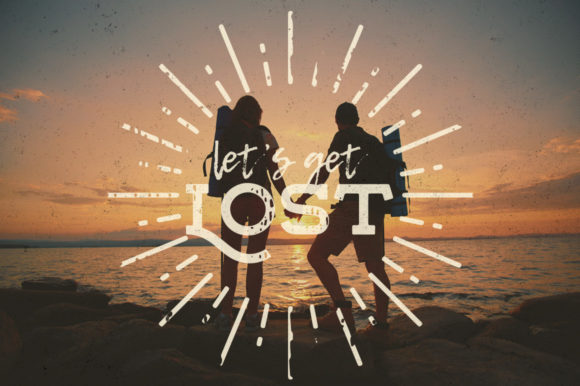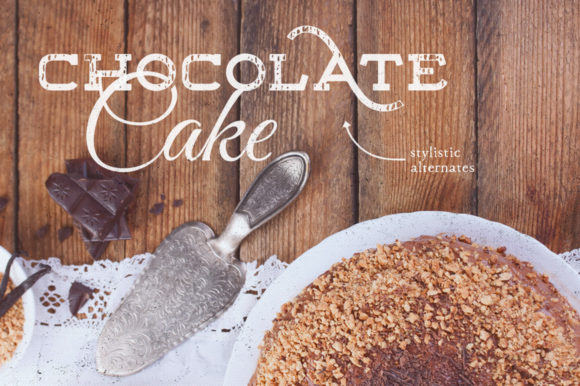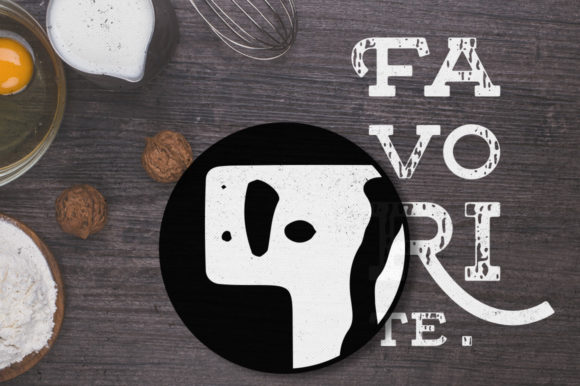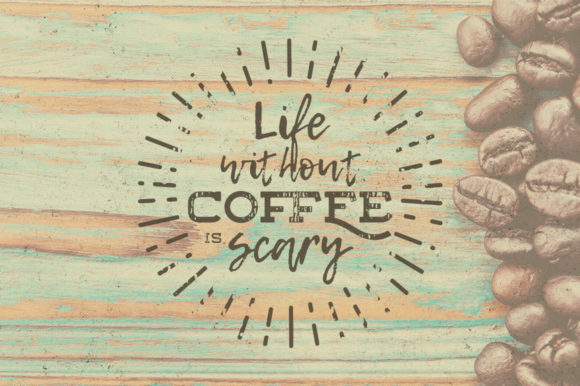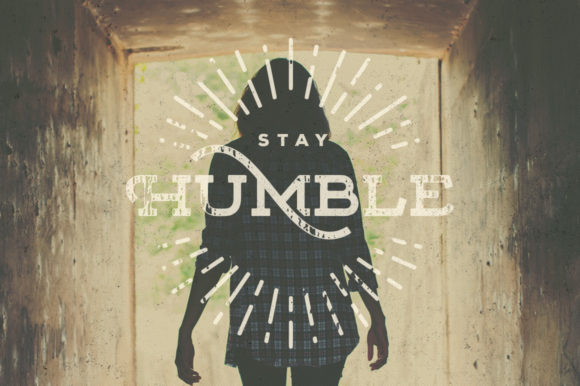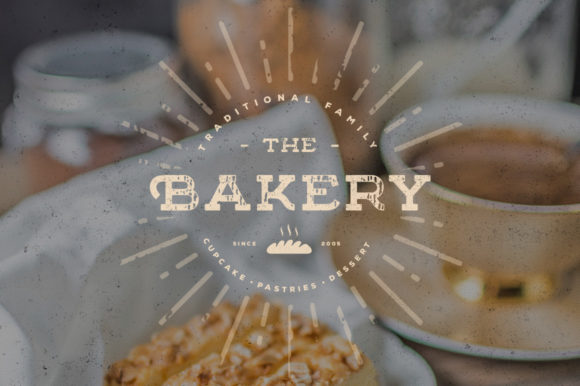
Introducing Floure Font: A Vintage Slab Serif Typeface for Authentic Retro Designs
In the world of typography, a new font has emerged that is sure to capture the hearts of designers and crafters alike. Meet Floure Font, a slab serif typeface that draws inspiration from the mid-19th century with its strong, unique, and vintage rough shapes. This font is perfect for those looking to add an authentic retro feel to their designs, whether it’s for branding, advertising, poster design, book covers, headlines, prints, merchandise, websites, magazines, album covers, quote designs, and more.
The Inspiration Behind Floure Font
Floure Font is a nod to the typographic styles of the mid-19th century, a time when slab serif fonts were gaining popularity. The font’s design is characterized by its strong, rugged shapes and vintage feel, which evoke a sense of nostalgia and timelessness. The creators of Floure Font aimed to capture the essence of this era and bring it to modern designers and crafters, allowing them to create authentic retro designs that stand out.
Key Features of Floure Font
So, what makes Floure Font so special? Here are some of its key features:
- Mid-19th century style: Floure Font is inspired by the typographic styles of the mid-19th century, making it perfect for designs that require an authentic retro feel.
- Strong and unique shapes: The font’s rugged shapes and vintage feel make it stand out from other slab serif fonts.
- Vintage rough shapes: Floure Font’s rough shapes give it a distressed, worn look that’s perfect for creating authentic retro designs.
- Versatile: Floure Font can be used for a wide range of design projects, from branding and advertising to poster design, book covers, and more.
Use Cases for Floure Font
Floure Font is an incredibly versatile font that can be used for a wide range of design projects. Here are some use cases to get you started:
- Branding: Use Floure Font to create a unique and memorable brand identity that stands out from the crowd.
- Advertising: Add a touch of nostalgia to your ad campaigns with Floure Font’s authentic retro feel.
- Poster design: Create eye-catching posters that evoke a sense of timelessness with Floure Font.
- Book covers: Use Floure Font to create a vintage look for your book covers that will grab readers’ attention.
- Headlines: Add a touch of elegance and sophistication to your headlines with Floure Font.
- Prints: Use Floure Font to create stunning prints that showcase your design skills.
- Merchandise: Create unique and eye-catching merchandise, such as t-shirts, mugs, and more, with Floure Font.
- Websites: Add a touch of nostalgia to your website with Floure Font’s authentic retro feel.
- Magazines: Use Floure Font to create a unique and memorable magazine design that stands out from the crowd.
- Album covers: Create stunning album covers that evoke a sense of timelessness with Floure Font.
- Quote designs: Use Floure Font to create inspiring quote designs that showcase your creativity.
Why Choose Floure Font?
So, why should you choose Floure Font for your design projects? Here are some reasons:
- Unique and authentic retro feel: Floure Font’s vintage rough shapes and strong, unique shapes give it an authentic retro feel that’s hard to find in other fonts.
- Versatile: Floure Font can be used for a wide range of design projects, making it a great addition to your font library.
- Elegant and sophisticated: Floure Font’s slab serif design makes it perfect for creating elegant and sophisticated designs.
- Easy to read: Despite its vintage feel, Floure Font is easy to read, making it perfect for body text and headlines.
In conclusion, Floure Font is a slab serif typeface that is sure to capture the hearts of designers and crafters alike. Its strong, unique, and vintage rough shapes make it perfect for creating authentic retro designs that stand out. With its versatility and elegant design, Floure Font is a great addition to any font library. So, why not give it a try and see how it can elevate your designs?